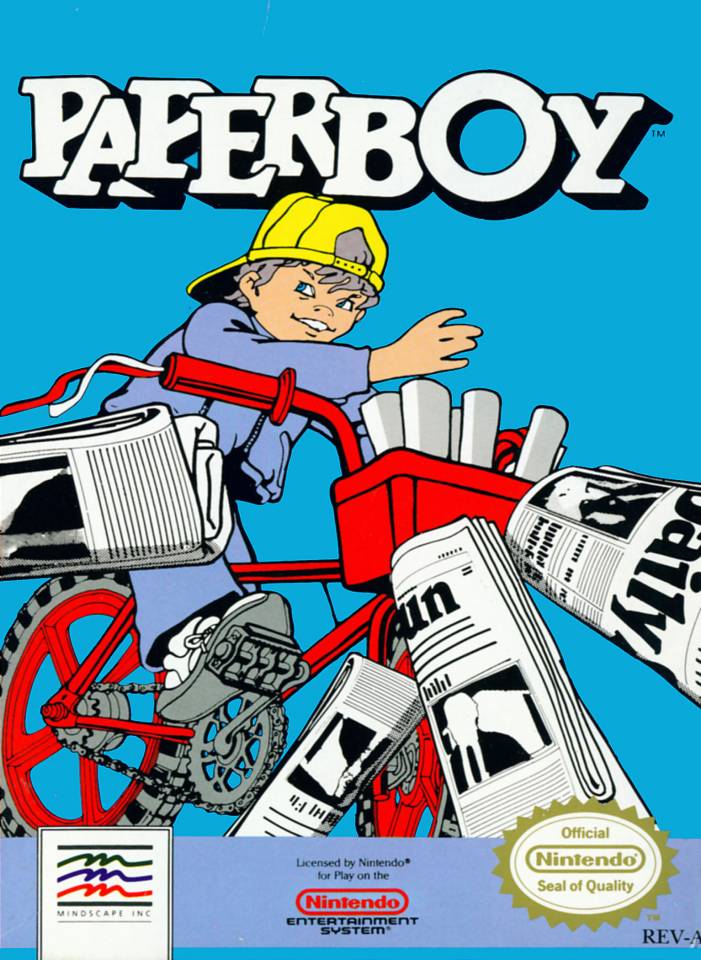
Paperboy (video game) Font
Fonts in UsePaperboy is a classic arcade video game released in 1985 where the player takes on the role of a paperboy delivering newspapers while avoiding obstacles and obstacles on the way.
For the original game, the title design features Letraset Bramley Extra Bold font with a tweaked "O" and a shadowed and layered effect. Meanwhile, the sequel's title design utilizes Colin Brignall's Italia Medium font.